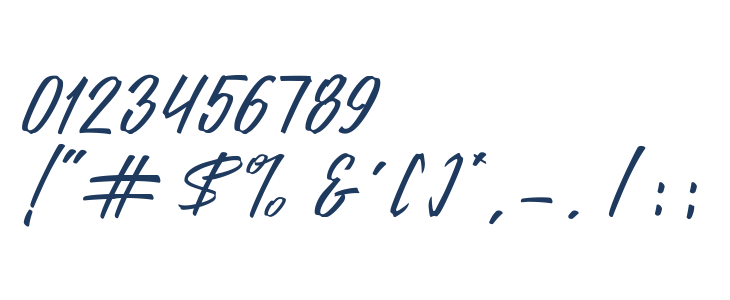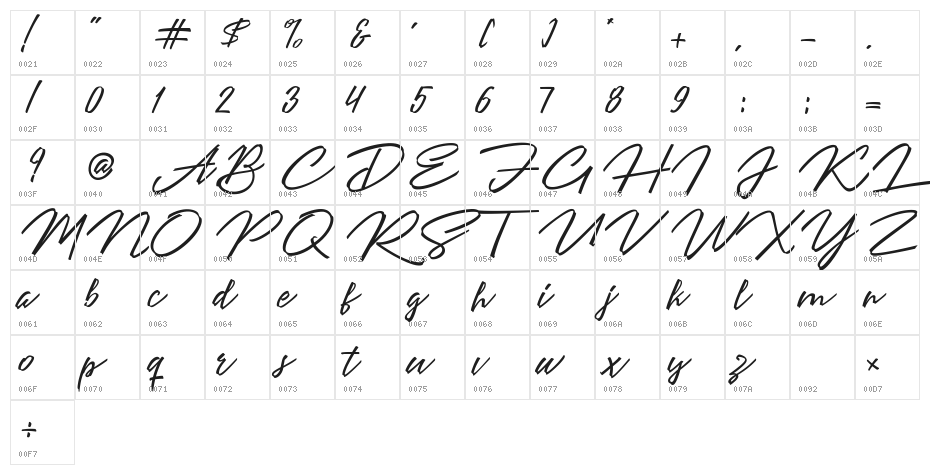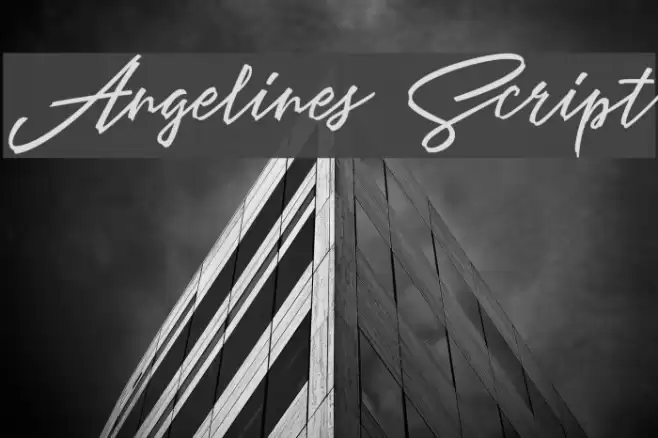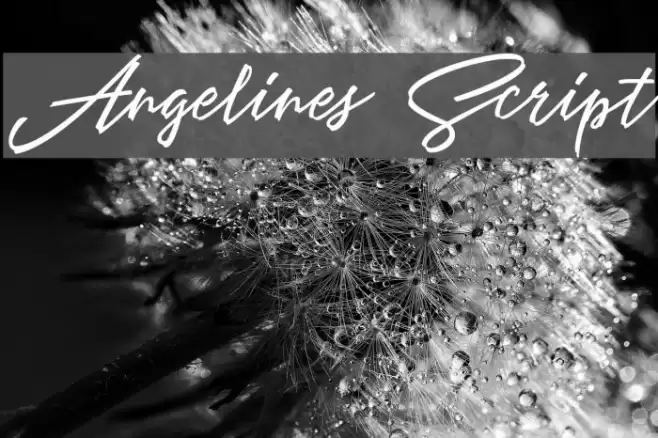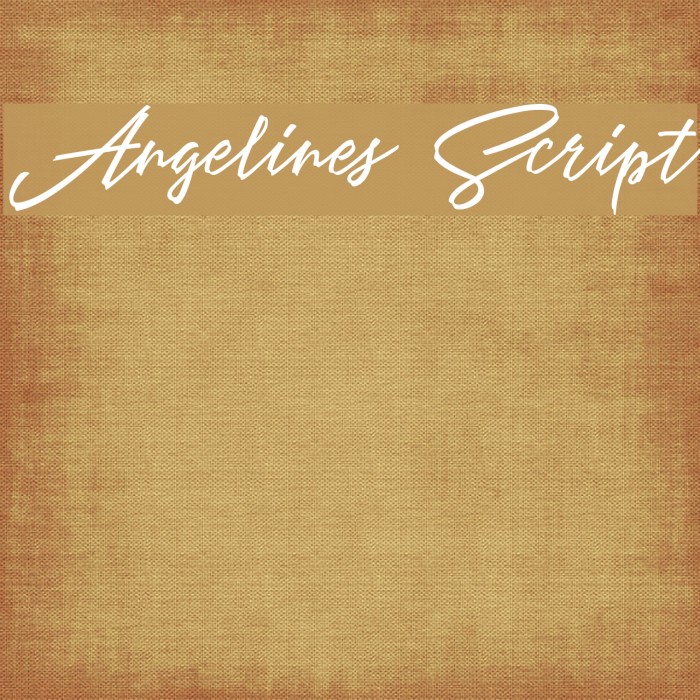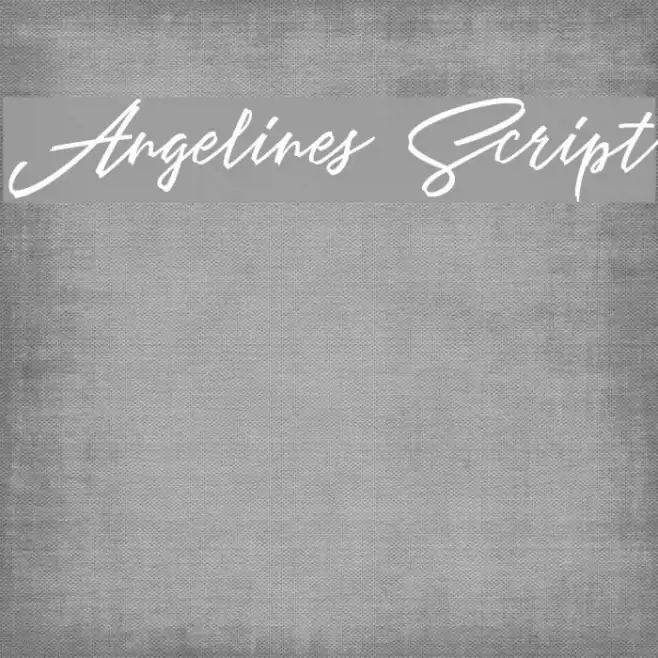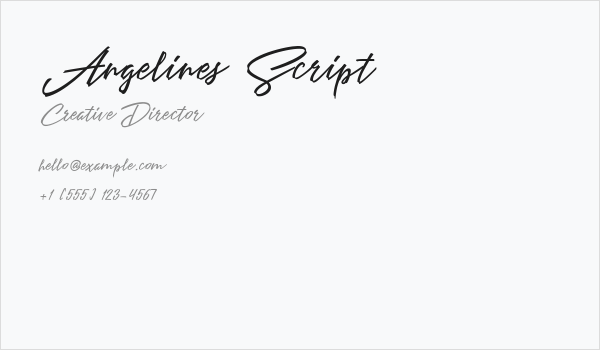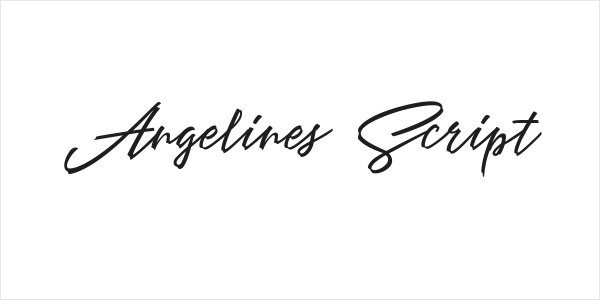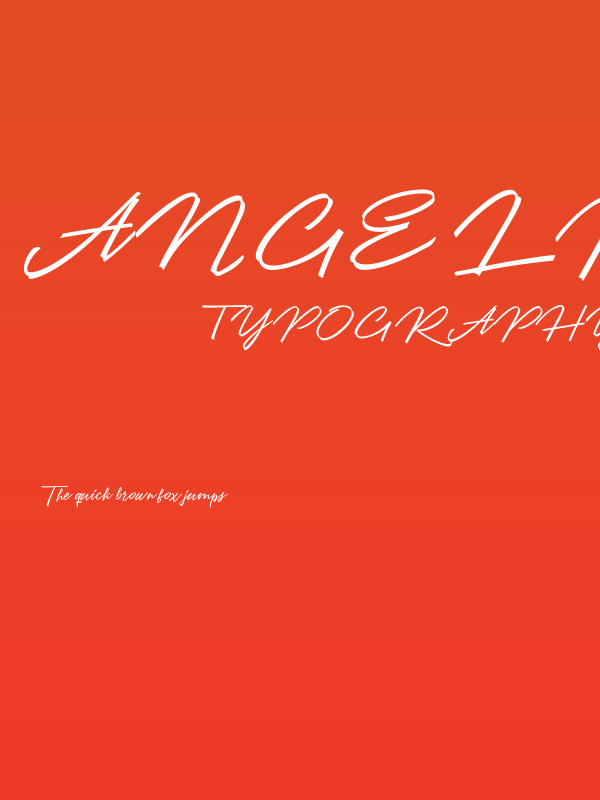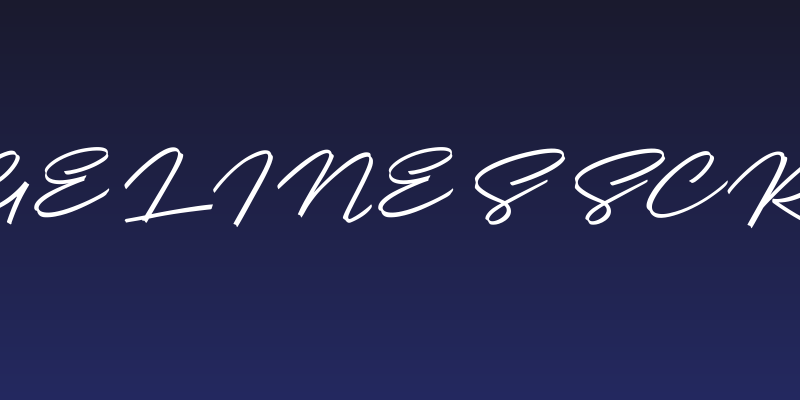
Angelines Script Font
Angelines Script Description
This elegant script font features a fluid, cursive style that mimics natural handwriting. The uppercase letters are gracefully connected, with smooth curves and a slight slant, giving a sophisticated and artistic appearance. The lowercase letters maintain a consistent flow, enhancing readability while preserving the script's decorative nature. The numerals are distinct and harmonize well with the overall style, while the special characters add versatility for various design needs. This font exudes a sense of elegance and creativity, making it suitable for projects that require a personal touch.
| Overall Style | Elegant, Artistic |
| Use Case | Headlines, Invitations, Branding |
| Proposed Projects | Ideal for wedding invitations, greeting cards, branding, and elegant logo designs. |